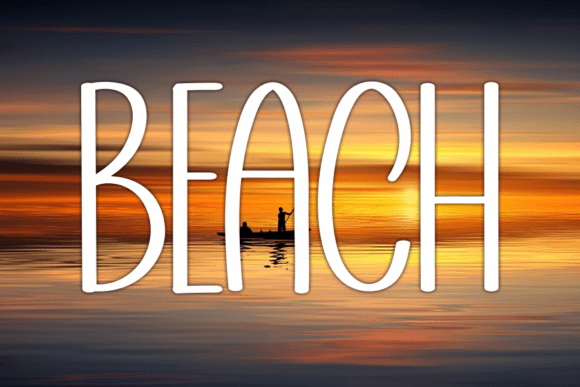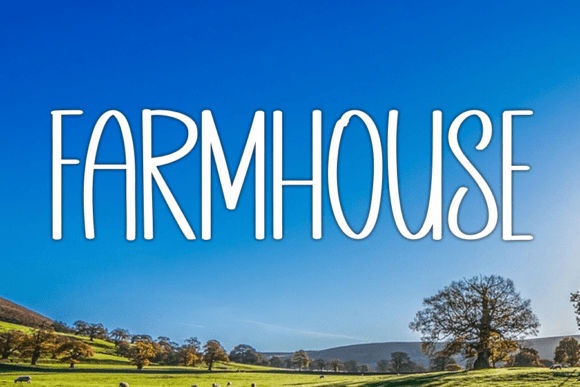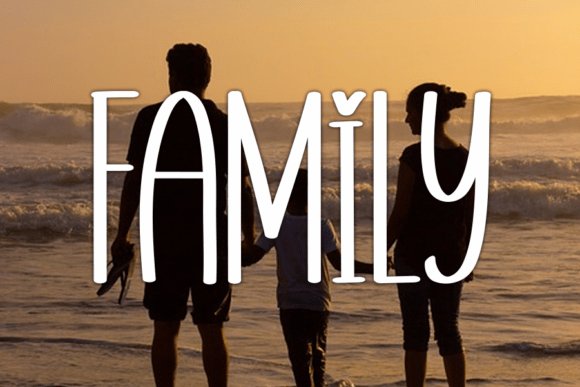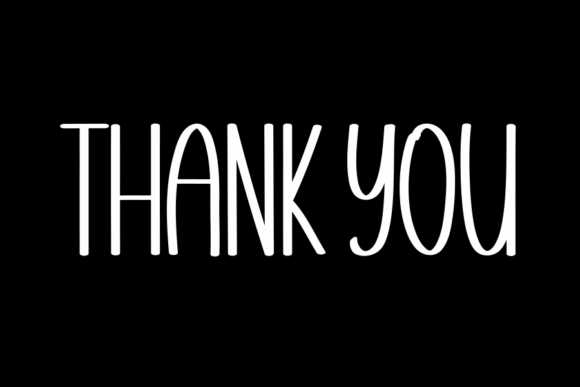
The Perfect Stroke of Creativity: Unveiling Birds Font
Have you ever found yourself scribbling away in a notebook, trying to capture the perfect handwritten feel for a project? We’ve all been there – searching for that elusive spark of creativity that makes our designs truly special. For designers and artists alike, finding the right font can be a game-changer. Enter Birds Font, a charming handwritten display font that’s guaranteed to add a touch of warmth and personality to any project.
Designed to evoke a sense of natural elegance, Birds Font is perfect for everything from greeting cards and invitations to headlines and editorials. Its versatility makes it a valuable asset for designers, allowing them to add a unique and distinctive touch to their work. Whether you’re looking to create something playful or sophisticated, Birds Font is sure to deliver.
Birds Font Key Features
- Font Family: Birds Font is a sans-serif font family designed for use in digital media, including web, mobile, and print applications.
- Font Size: Birds Font is available in 6 font weights, ranging from Light to Extra Bold, providing flexibility for designers to achieve the desired visual impact.
- Character Set: The font family includes a comprehensive character set, covering Latin, Cyrillic, and Greek alphabets, as well as a range of punctuation and symbol glyphs.
- Resolution: Designed for use at high resolutions, Birds Font is optimized for display at 72 dpi (dots per inch) and 96 dpi, ensuring crisp and clear rendering on various devices.
- Unique Characteristics: Birds Font features a distinctive, modern design aesthetic with clean lines, geometric shapes, and subtle rounded edges, making it suitable for a wide range of design applications, from corporate branding to editorial content.
Birds Font Review
Birds Font is a beautiful, hand-drawn sans-serif font that brings a playful touch to your designs. Here are some of its standout features:
- ✨ Unique and whimsical design that adds a personal touch to any project
- ✨ Highly legible, making it perfect for body text and headlines
- ✨ Comes in a range of weights and styles, allowing for versatility and customization
- ⚠️ Limited language support, which may not be suitable for projects requiring multilingual text
- ⚠️ May not be suitable for formal or professional projects due to its playful and informal design
Overall, I think Birds Font is a fantastic choice for designers looking to add a touch of personality to their work. While it may not be the best fit for every project, it’s a great option for creative and playful designs. With its unique design and high legibility, it’s definitely worth considering for your next project.
Tips for Getting the Most Out of Birds Font
Use Birds Font for creative and playful designs, such as invitations, greeting cards, and children’s books.
Experiment with different font sizes, colors, and styles to create a unique look.
Pair Birds Font with other whimsical fonts or illustrations to add visual interest.
Birds Font is ideal for:
– Children’s book illustrations
– Greeting cards and invitations
– Playful branding and marketing materials
– Whimsical website designs
Alternatives to “Birds Font” for Designers
Great Vibes Font is a beautiful, elegant script font that works well for headings, titles, and quotes. It’s ideal for designs that require a touch of sophistication and playfulness. Great Vibes Font is more versatile than Birds Font, as it can be used for both modern and vintage-inspired designs.
Comparison: Great Vibes Font has a more refined and delicate look compared to Birds Font’s whimsical feel. While Birds Font is perfect for playful designs, Great Vibes Font is better suited for more elegant and sophisticated projects.
Alex Brush Font is a hand-painted script font that’s perfect for adding a personal touch to designs. It’s ideal for projects that require a sense of warmth and humanity. Alex Brush Font is more expressive than Birds Font, making it suitable for designs that need to convey emotions and personality.
Q: Does the Birds Font include any special characters or symbols?
Yes, the Birds Font includes a wide range of special characters, including currency symbols, mathematical operators, and emojis. The font also includes a set of arrows, shapes, and other graphical elements that can be used to enhance your designs.